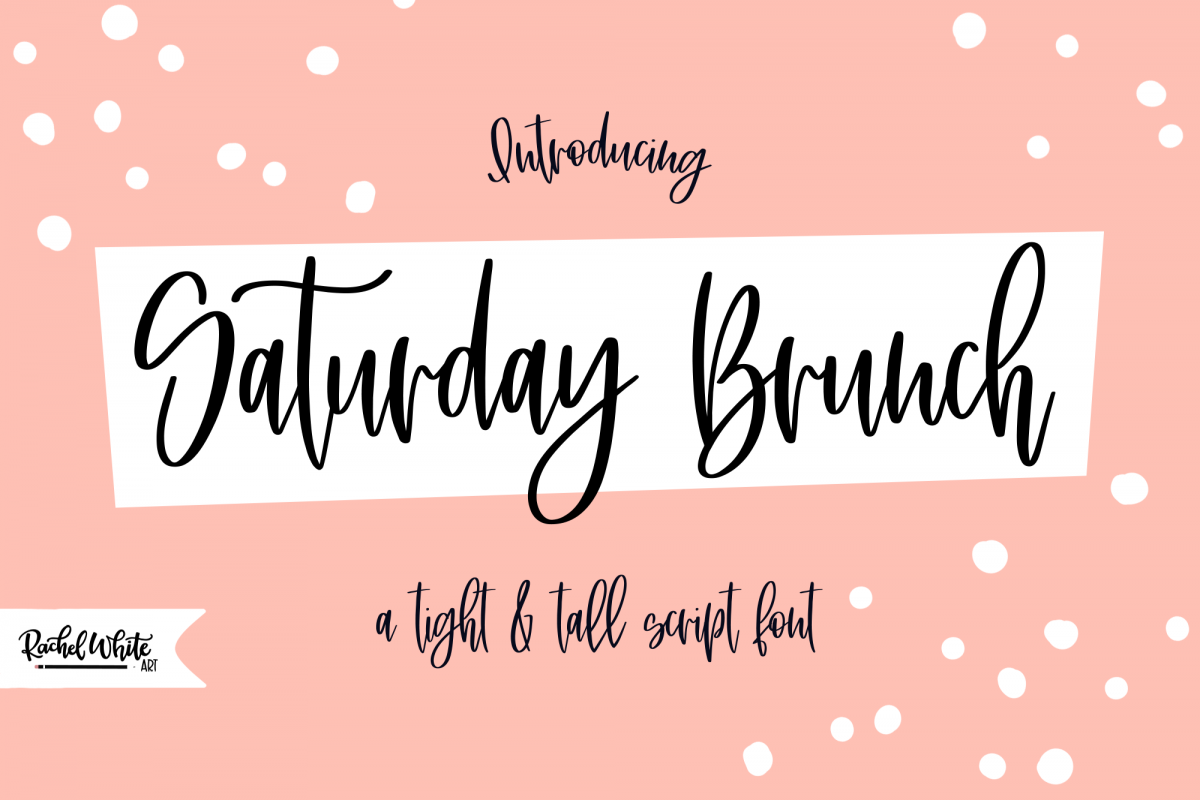
This is a smooth script - perfect for crafters. It fits into tight and tall places, has big loops, and lots of attitude.
Saturday Brunch has a set of alternate lowercase letters with no tails (which are coded to work with tricky letters like x and z who don't play well with tails), a bunch of double letter ligatures, and a few fun alternates, like lowercase t's with long swooping crossbars.
It's also got language support for Western European languages! Yay for being multi-lingual!